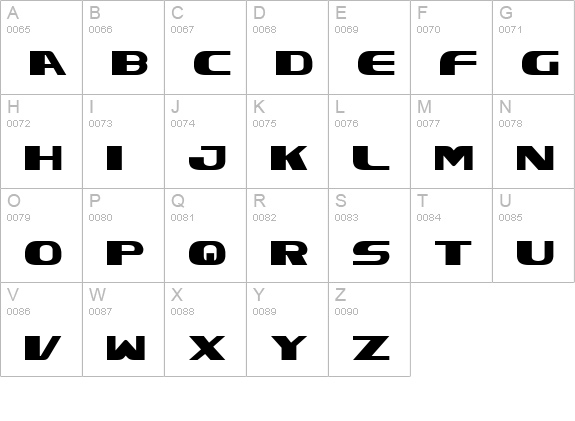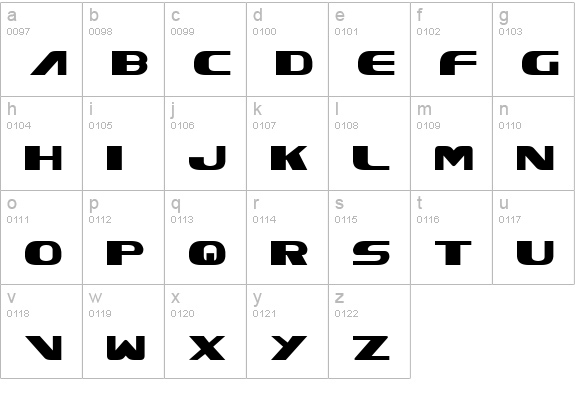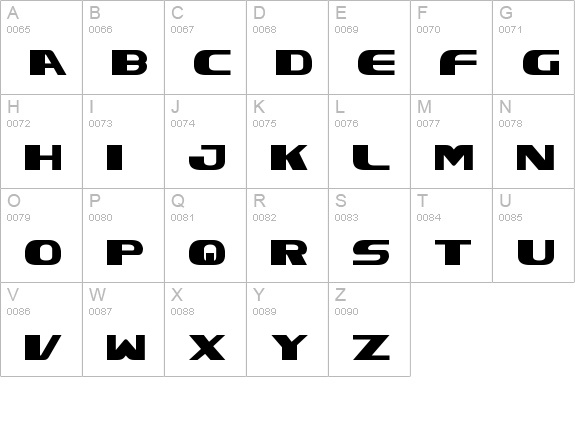
Xcelsion Font Details
Xcelsion font is a modern and stylish typeface that exudes elegance and sophistication. With its clean lines and sleek design, Xcelsion is perfect for a wide range of projects, from branding to editorial design. This versatile font is sure to make your text stand out and capture attention. The best part? Xcelsion font is completely free to download at FontsMarket.com. You can easily access this amazing font and elevate your designs without any cost. Don't miss out on the opportunity to enhance your creative projects with the timeless beauty of Xcelsion font. Download it today and let your creativity soar!